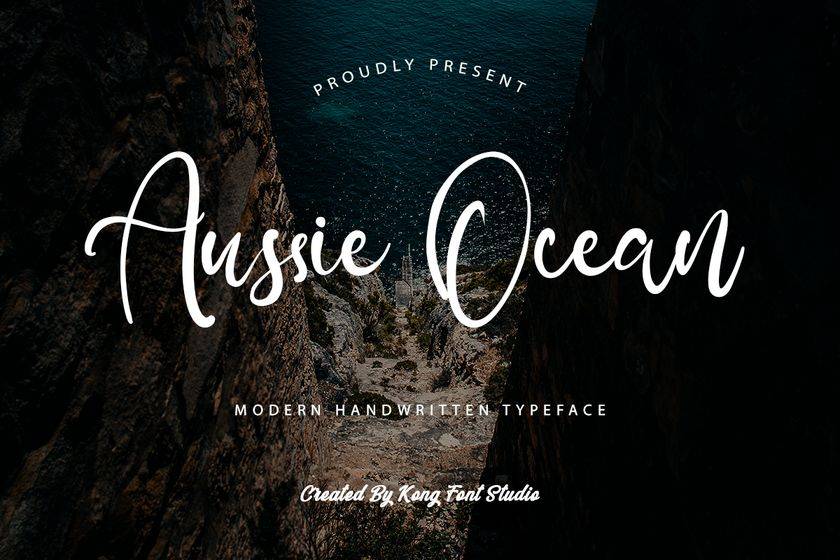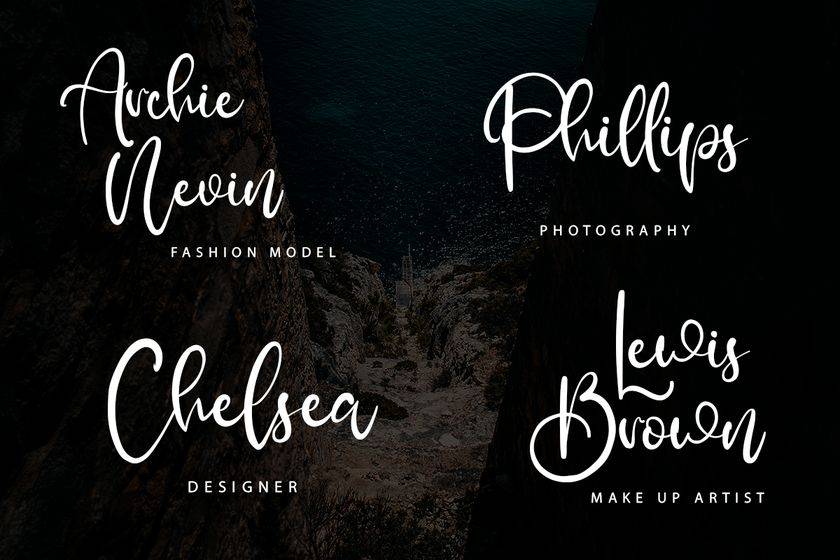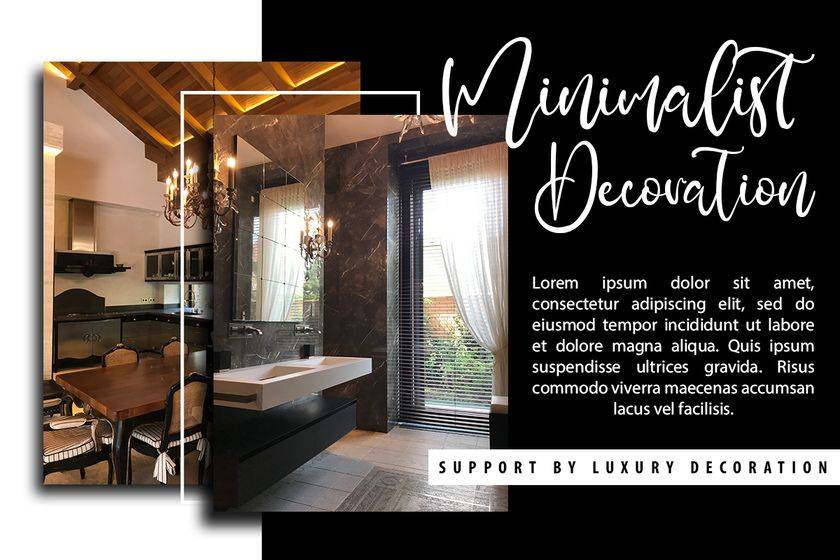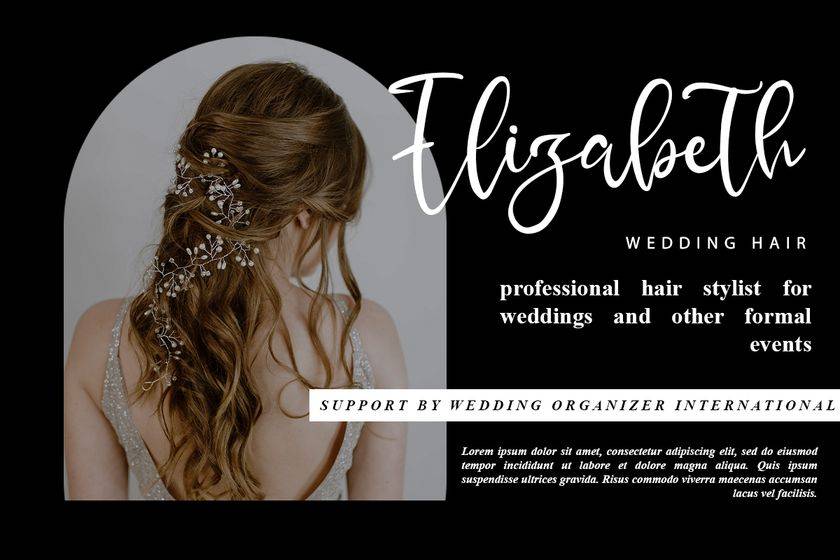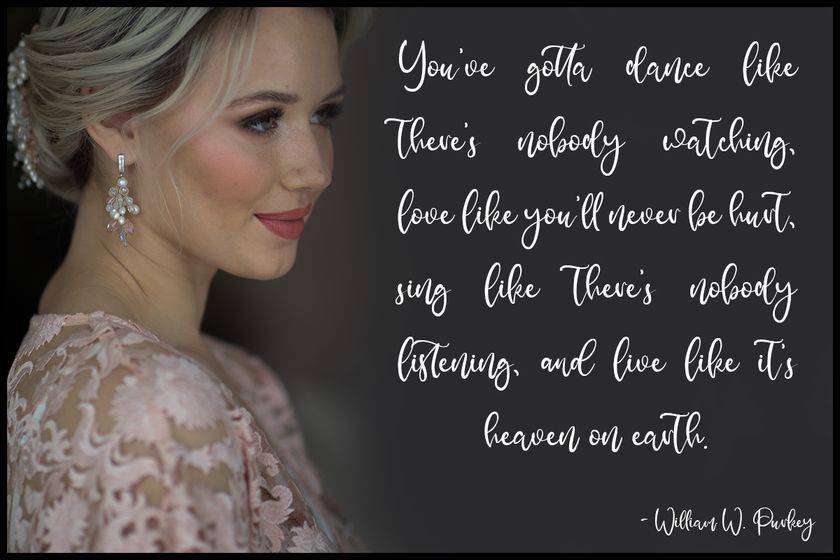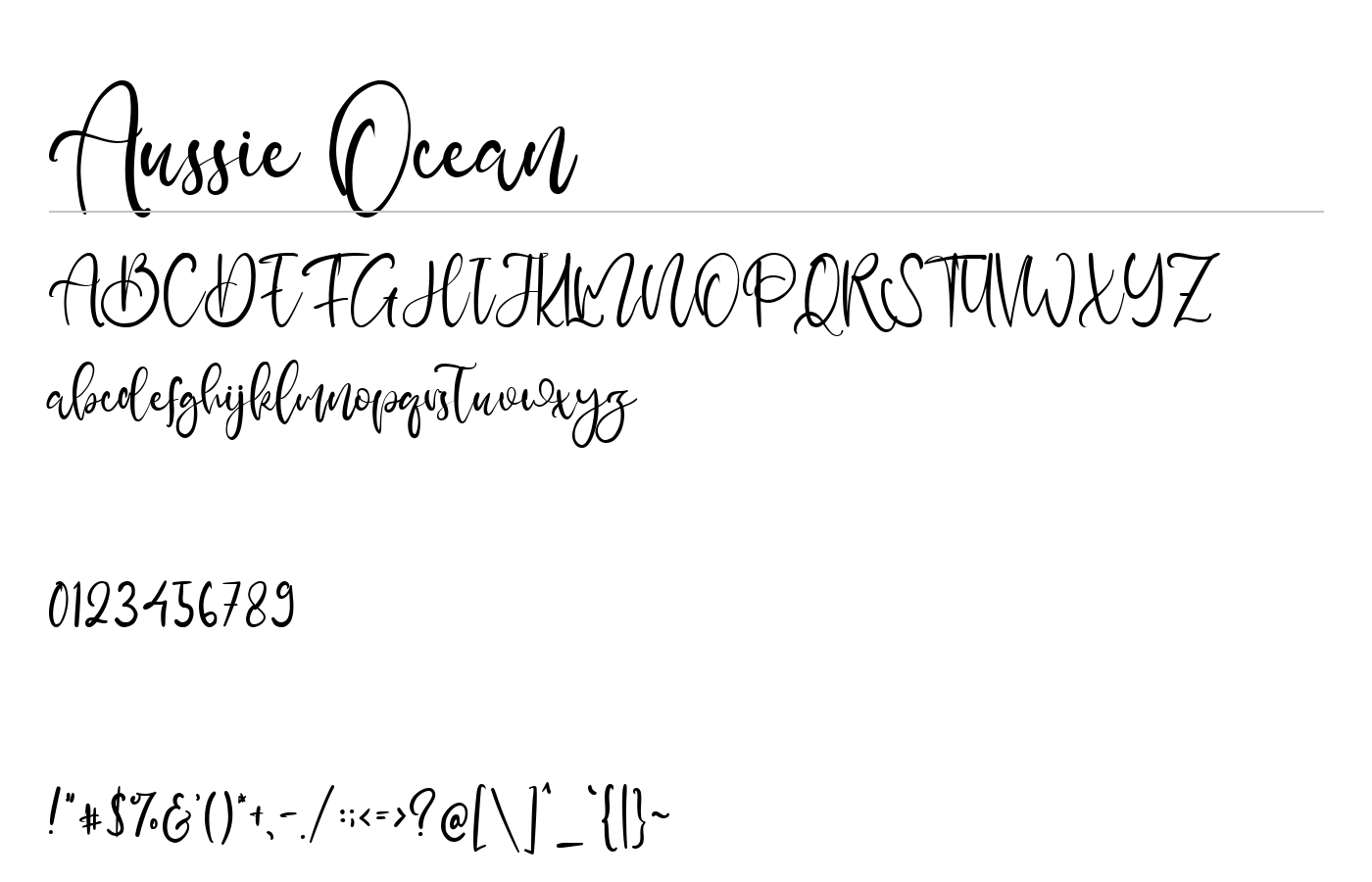
Aussie Ocean is a delicate script font that showcases elegant, flowing letterforms with a natural, hand-drawn feel. Its slender strokes and playful curves give it a friendly yet sophisticated personality, making it perfect for creative branding, invitations, and lifestyle projects where a personal touch is desired. This font works especially well for logos and editorial design, adding charm and warmth without sacrificing readability.
Aussie Ocean Font
About Aussie Ocean Font